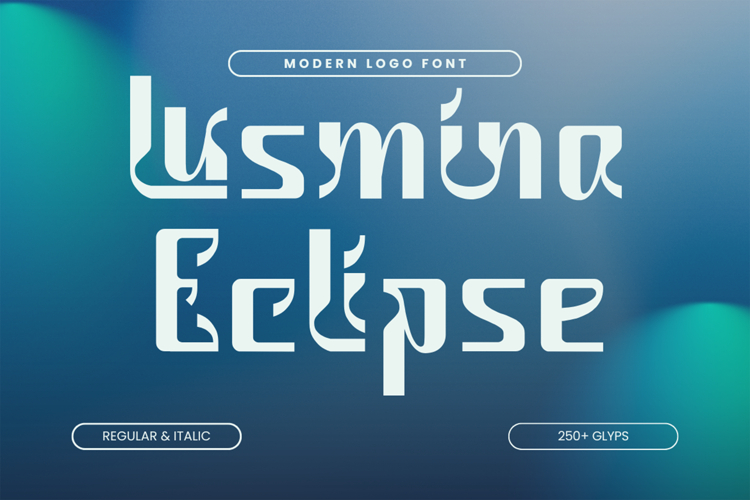
Lusmina Eclipse - Modern Logo Font | Web Font
Lusmina Eclipse is a modern logo font designed with futuristic curves and geometric strokes that make it stand out in any branding project. With over 250 glyphs, including ligatures and alternates, this typeface offers a balance of innovation and versatility.
Available in Regular and Italic styles, Lusmina Eclipse is perfect for creating bold logos, sleek branding, professional presentations, and cutting-edge digital projects. Its clean yet creative design ensures strong readability while maintaining a unique aesthetic, making it an excellent choice for agencies, startups, and creators who want to leave a lasting impression.